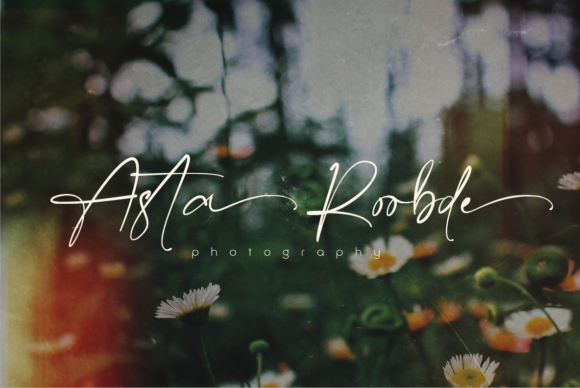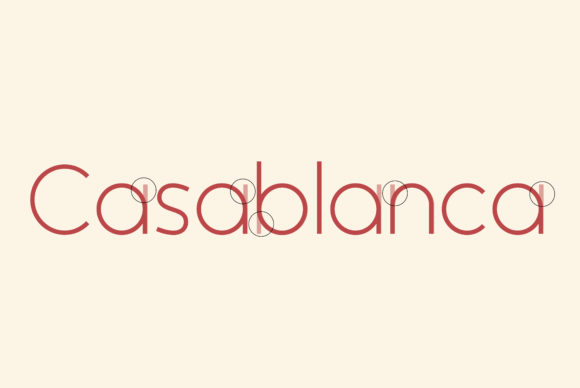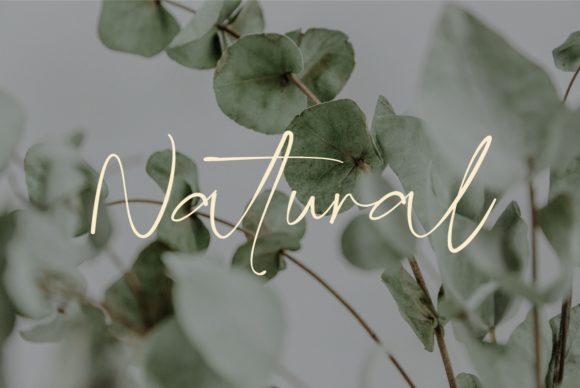
Gatha Duo Font: Elevate Your Designs with a Heavenly Match
Are you tired of using the same old fonts in your designs? Look no further! Gatha Duo Font is here to revolutionize your creative projects. This exceptional font duo perfectly combines a stunning script with an elegant sans serif, providing a modern and unique look that’s sure to captivate your audience.
The Perfect Pairing: Script and Sans Serif
Gatha Duo Font is a thoughtfully crafted pairing of two distinct styles that complement each other beautifully. The script font boasts fluid, connected letters that exude elegance and sophistication, while the sans serif font offers clean, crisp lines that provide a beautiful contrast. This harmonious union allows you to add depth and visual interest to your designs, making them truly stand out.
With Gatha Duo Font, the design possibilities are endless! Use the script font to add a touch of luxury and whimsy to your projects, or opt for the sans serif font to convey a sense of modernity and simplicity. The versatility of this font duo makes it perfect for a wide range of applications, including:
Why Choose Gatha Duo Font?
So, what sets Gatha Duo Font apart from other font combinations? Here are just a few reasons why designers and crafters love this heavenly match:
- Unique and modern look: Gatha Duo Font offers a fresh and contemporary aesthetic that’s sure to grab attention.
- Highly versatile: The script and sans serif fonts can be used together or separately, giving you maximum creative flexibility.
- Elegant and sophisticated: The beautiful script font adds a touch of luxury and whimsy, while the sans serif font provides a clean and modern contrast.
- Easy to read: The sans serif font is highly legible, making it perfect for body text and other applications where readability is key.
Tips for Using Gatha Duo Font
To get the most out of Gatha Duo Font, here are a few tips to keep in mind:
- Mix and match: Experiment with combining the script and sans serif fonts in different ways to create visual interest and hierarchy.
- Play with sizes: Use different font sizes to create contrast and emphasis in your designs.
- Add embellishments: Consider adding decorative elements, such as flourishes or icons, to enhance the beauty of the script font.
Gatha Duo Font is a game-changer for designers and crafters looking to elevate their creative projects. With its perfect pairing of script and sans serif fonts, this heavenly match offers a modern and unique look that’s sure to captivate your audience. Whether you’re working on a logo, invitation, or social media graphic, Gatha Duo Font is the perfect choice. So why wait? Download Gatha Duo Font today and experience the power of this incredible font duo for yourself!
| Font Styles | Script and Sans Serif |